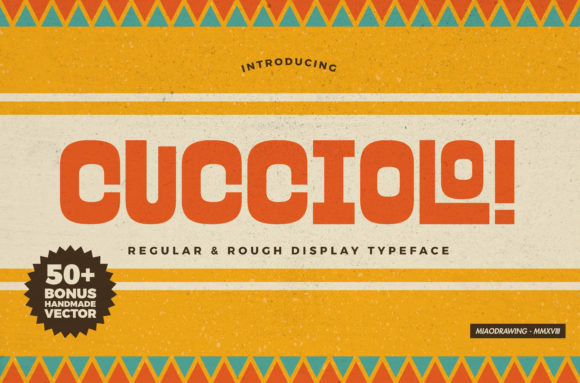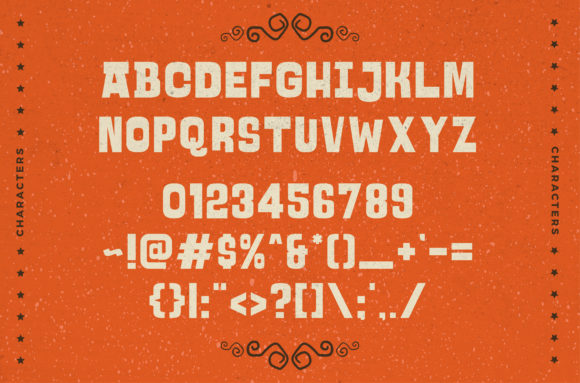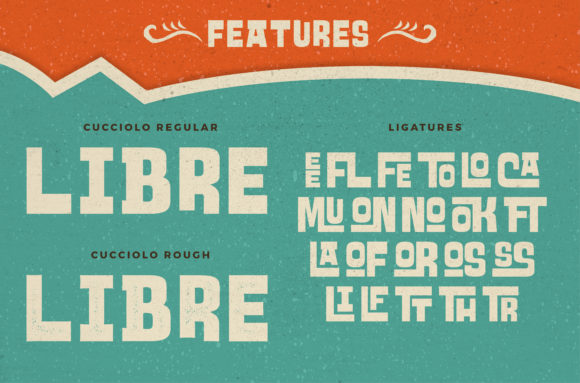
Cucciolo Font: Playful Display Font for Mexican-Inspired Designs!
About the Cucciolo Font
Explore the possibilities with Cucciolo Font, a font that offers both beauty and functionality. Cucciolo is a beautiful and playful display font inspired by Mexican culture. Use it to turn any design project into a true standout!
Cucciolo’s playful energy makes it ideal for headlines, branding elements, posters, and short text-based packaging designs. Its decorative nature, however, makes it less suitable for body copy or UI elements where readability is paramount. Avoid using it for long paragraphs or small sizes.
The font’s inherent boldness pairs well with clean sans-serif fonts like Montserrat or Open Sans for a balanced contrast. For a more playful feel, consider pairing it with a rounded geometric sans-serif such as Futura or a handwritten script font with a similar level of energy. Avoid pairing it with overly ornate or overly serious typefaces.
Cucciolo projects a friendly, vibrant personality, best suited for brands targeting a younger demographic or those with a focus on fun, cultural expression, and Mexican-inspired aesthetics.
Cucciolo Font Usage Examples
Cucciolo Font Example